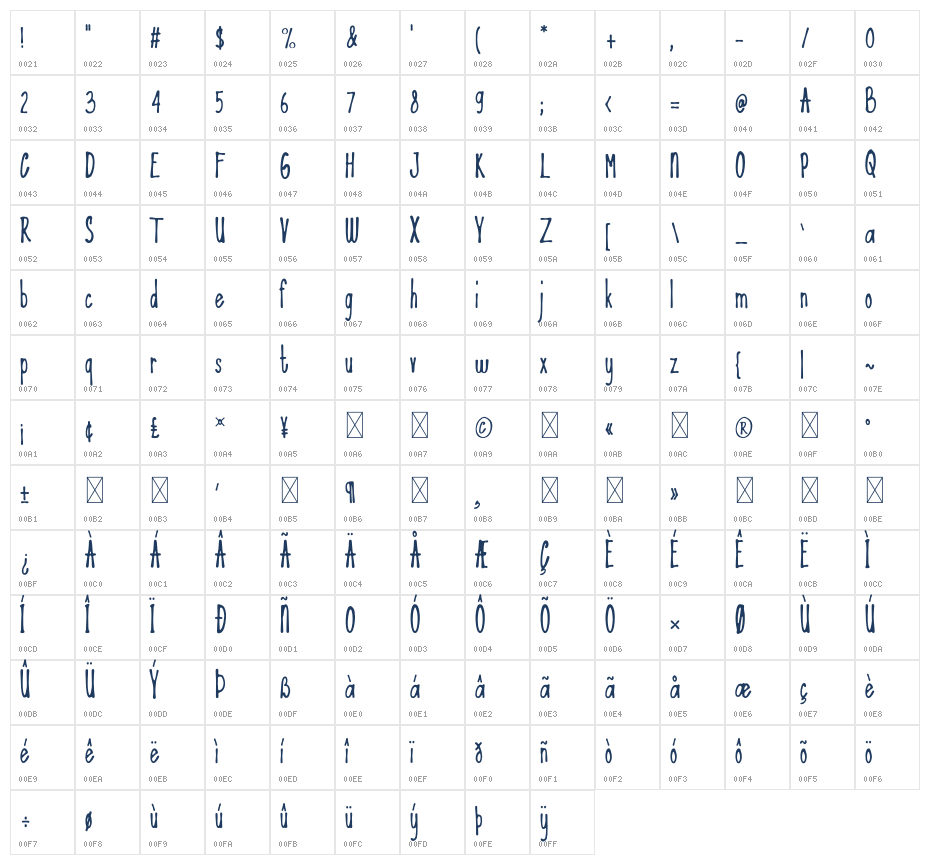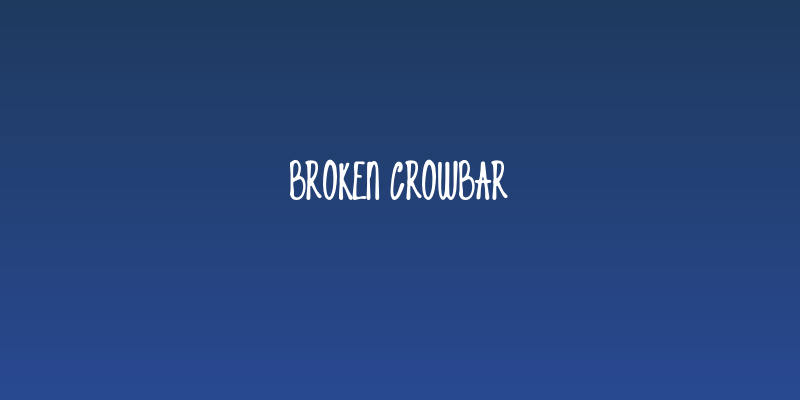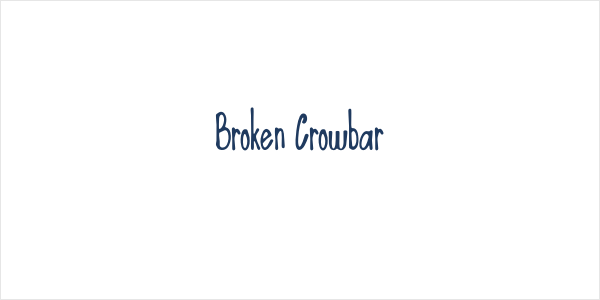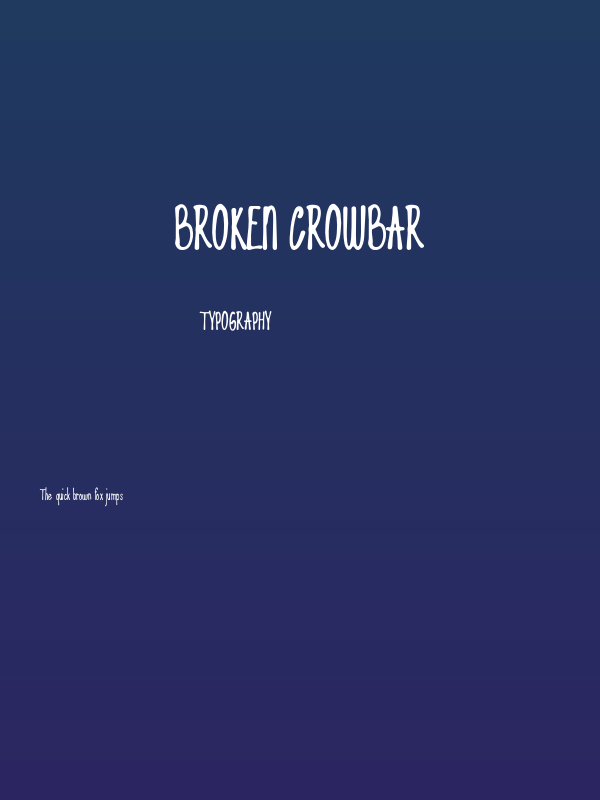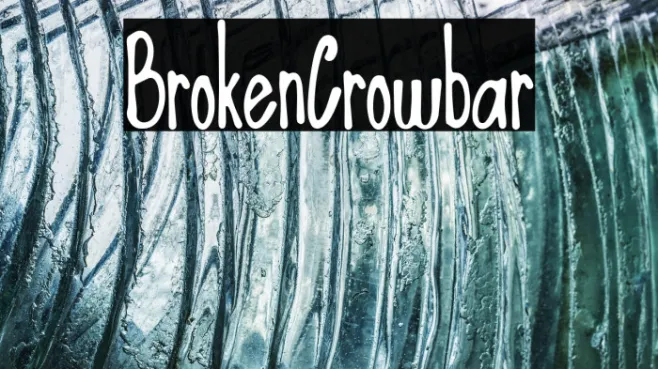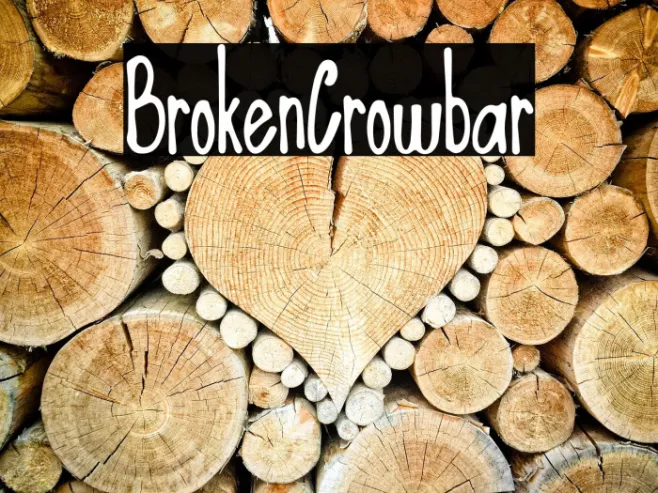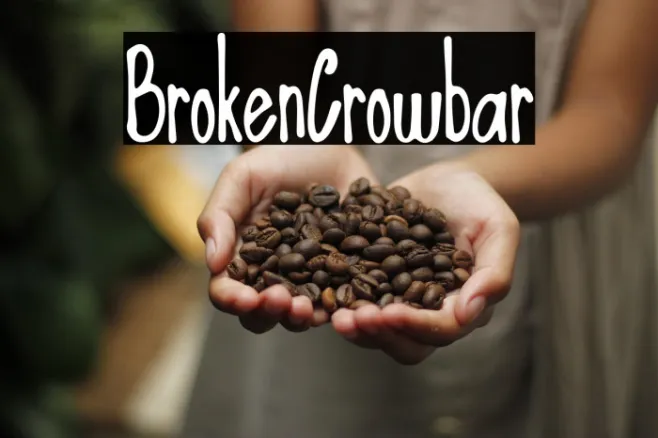
Broken Crowbar Font
Broken Crowbar Description
A playful, handwritten style font with irregular, slightly whimsical characters.
| Overall Style | Casual, Playful, Informal |
| Use Case | Headlines, Body text, Invitations, Creative projects |